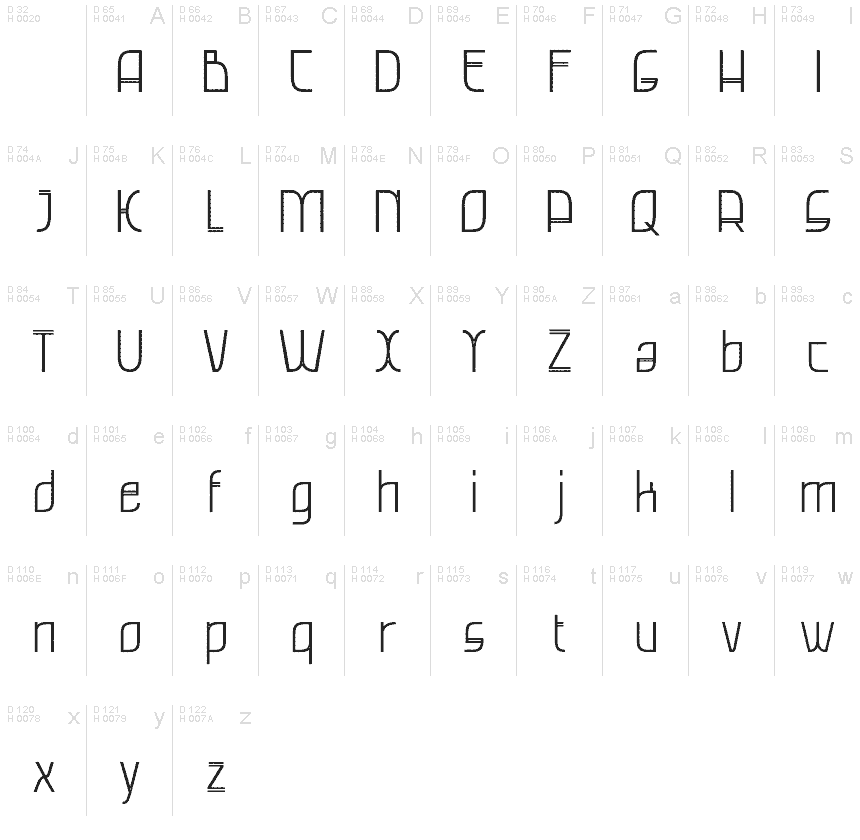
Anzuka Stamp Regular Demo
Anzuka Stamp font by Craft Supply Co is a display typeface with a unique beauty. Its retro style offers great versatility and a nice change from casual sans serif and decorative serifs. All uppercase characters come in an outlined style that can add weight for posters, business cards, advertising, magazines, or other readers.